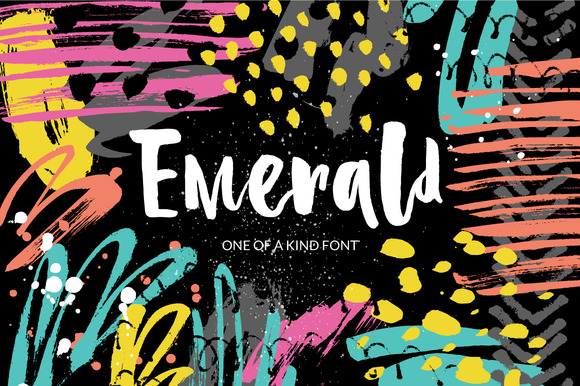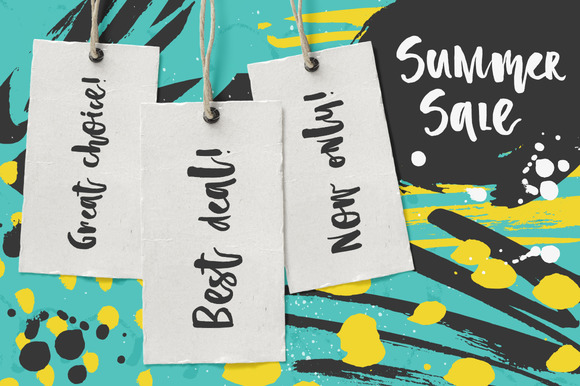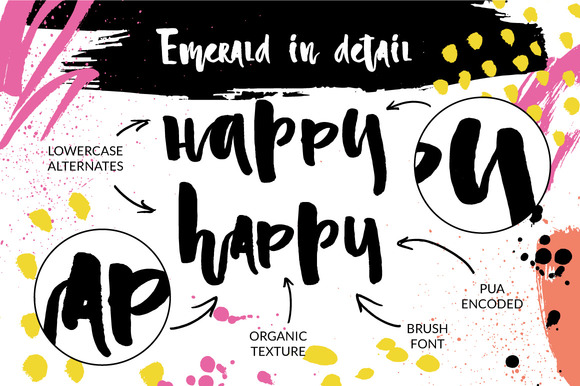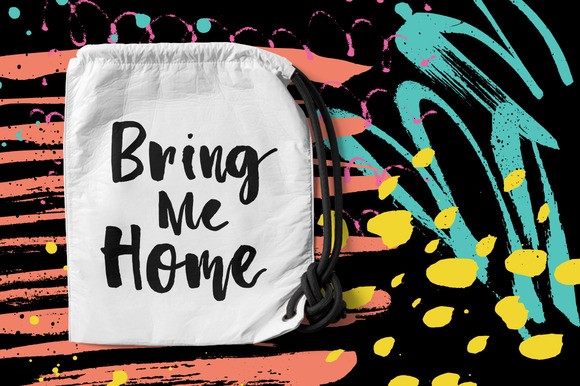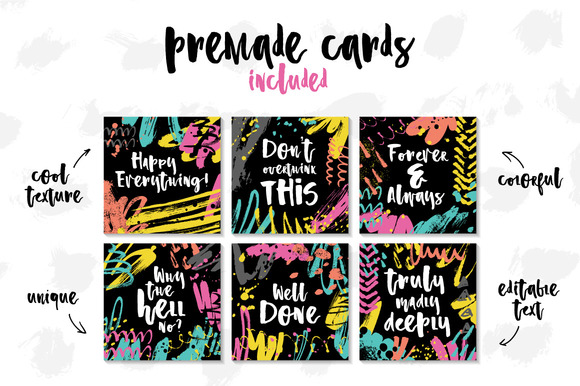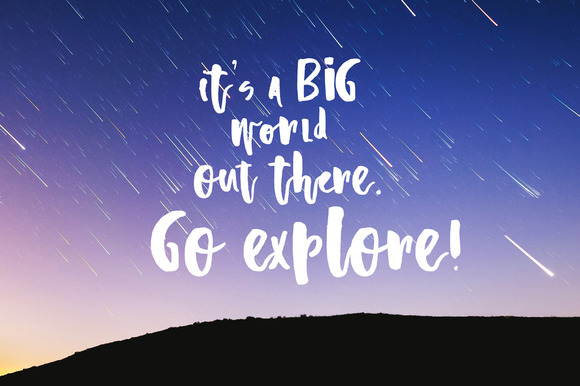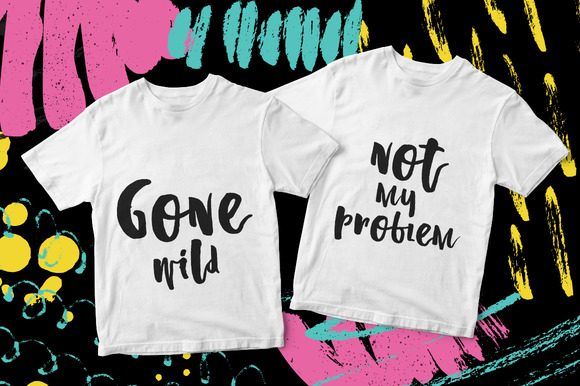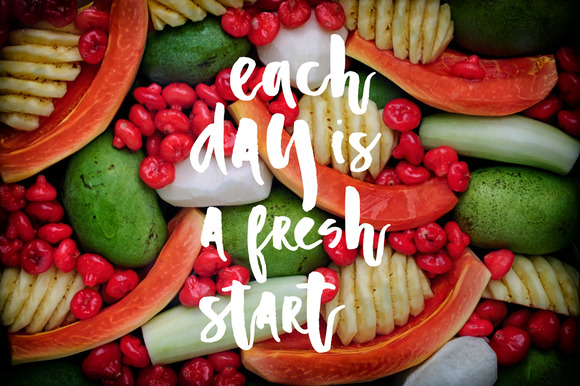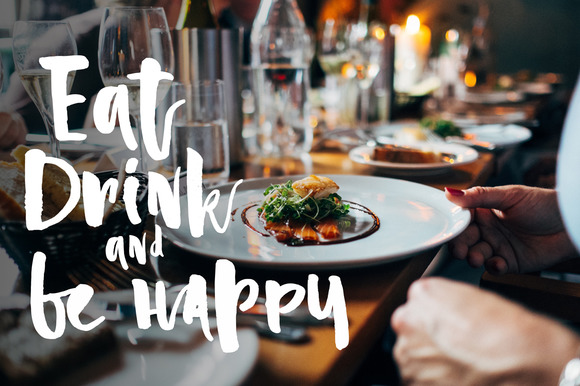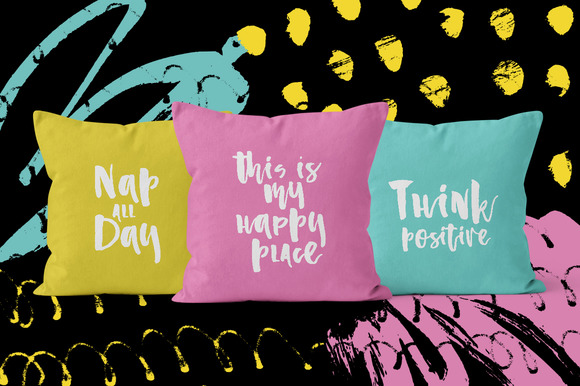
Emerald Font
About Emerald Font
Emerald is a unique brush font. The Emerald font features a dancing baseline and offers some unique variations of lowercase letters.